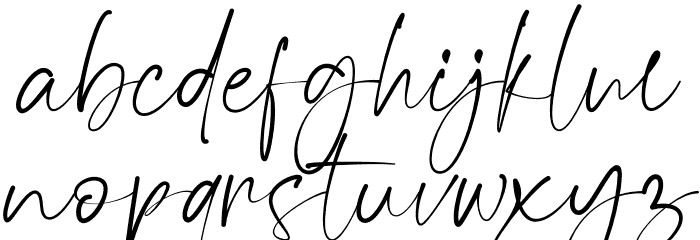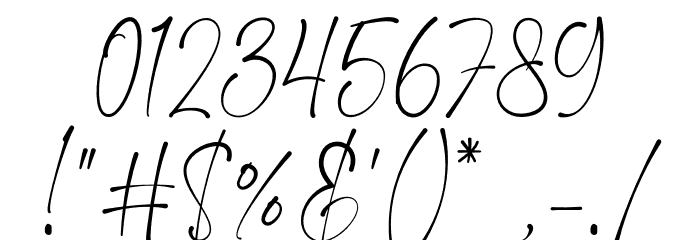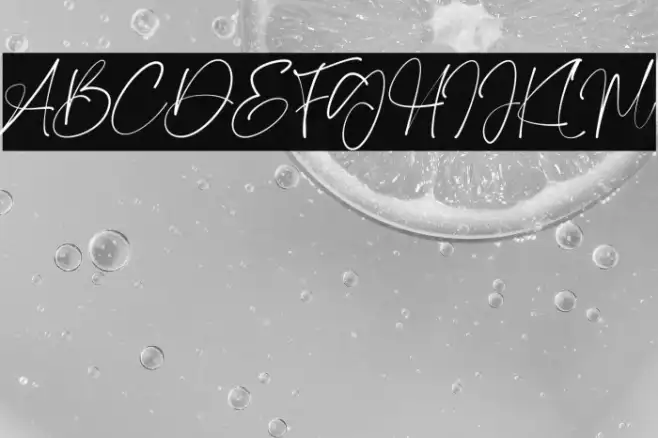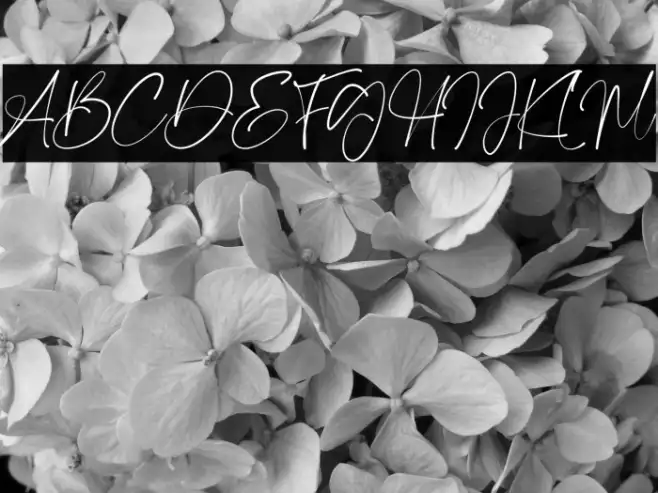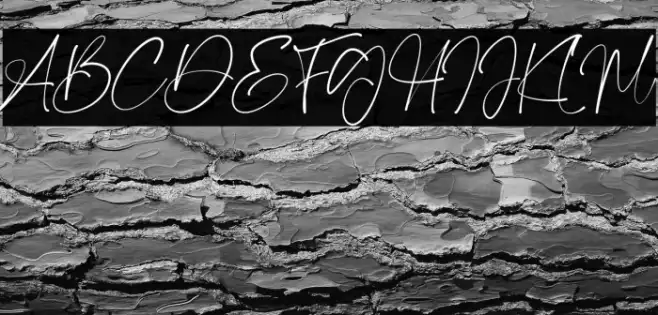
Magis Authentic Font
This font exudes a sense of elegance and fluidity, characterized by its cursive, handwritten style. The letters are connected in a smooth, flowing manner, giving it a personal and artistic touch. The uppercase letters are tall and slender, while the lowercase letters maintain a consistent flow, enhancing readability. The numerals are distinct yet harmonious with the overall style, and the special characters are crafted to match the font's graceful aesthetic. This font is ideal for projects that require a touch of sophistication and creativity.
A cursive, handwritten font with elegant, flowing characters.
- Font: Magis Authentic
- Proposed Projects: Ideal for wedding invitations, greeting cards, personal branding, and artistic projects.
- Category: Handwritten
- Overall Style: Elegant, Artistic
- Use Case: Logos, Invitations, Personal Branding